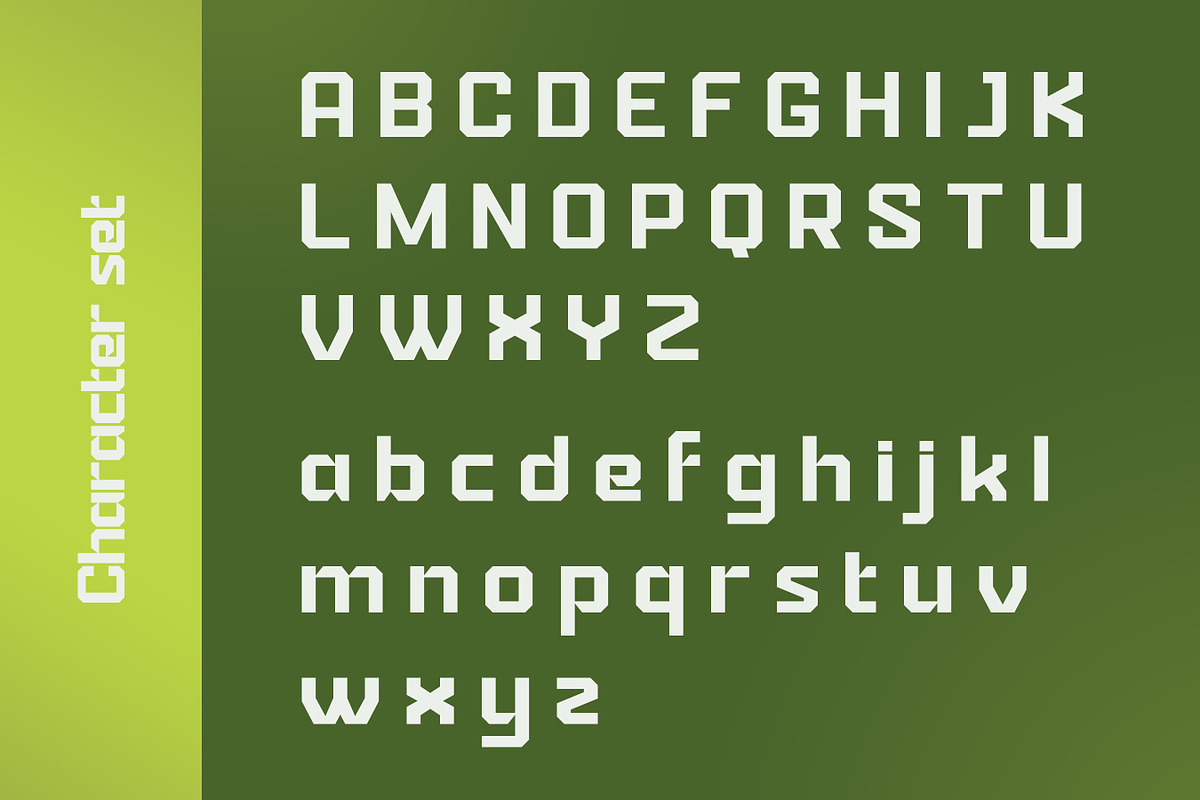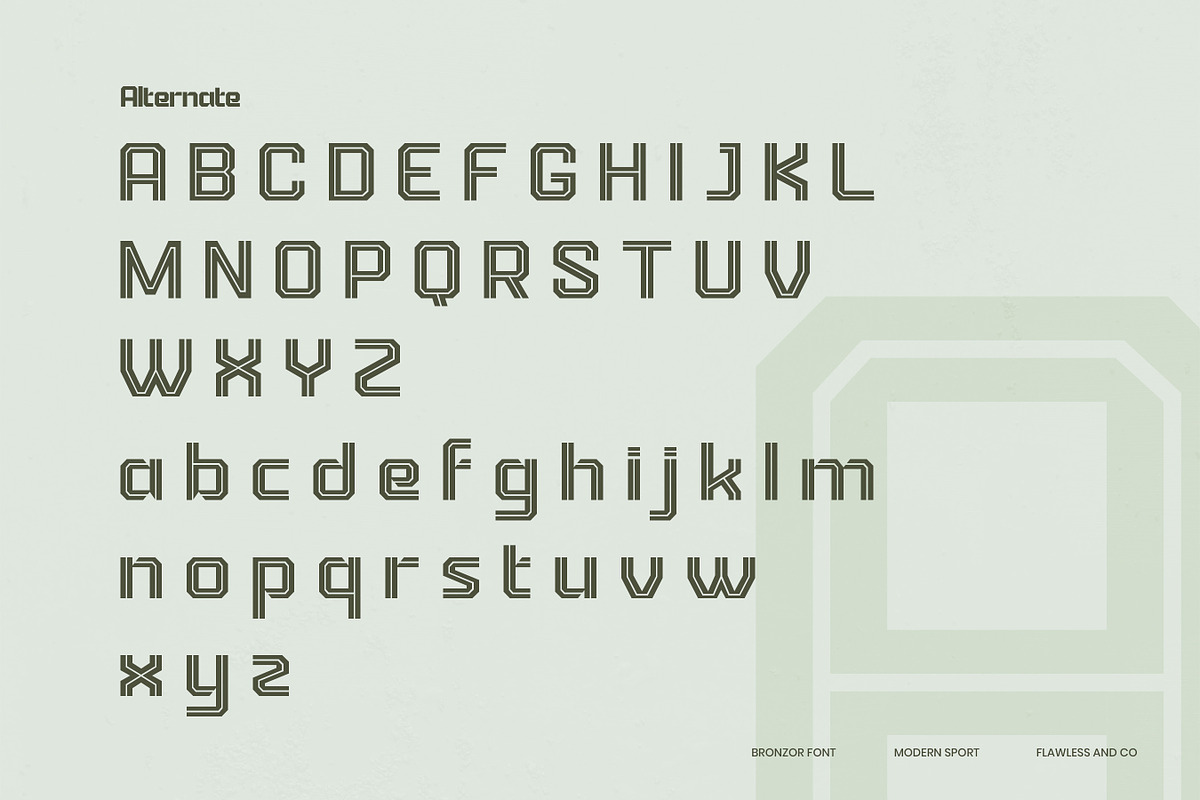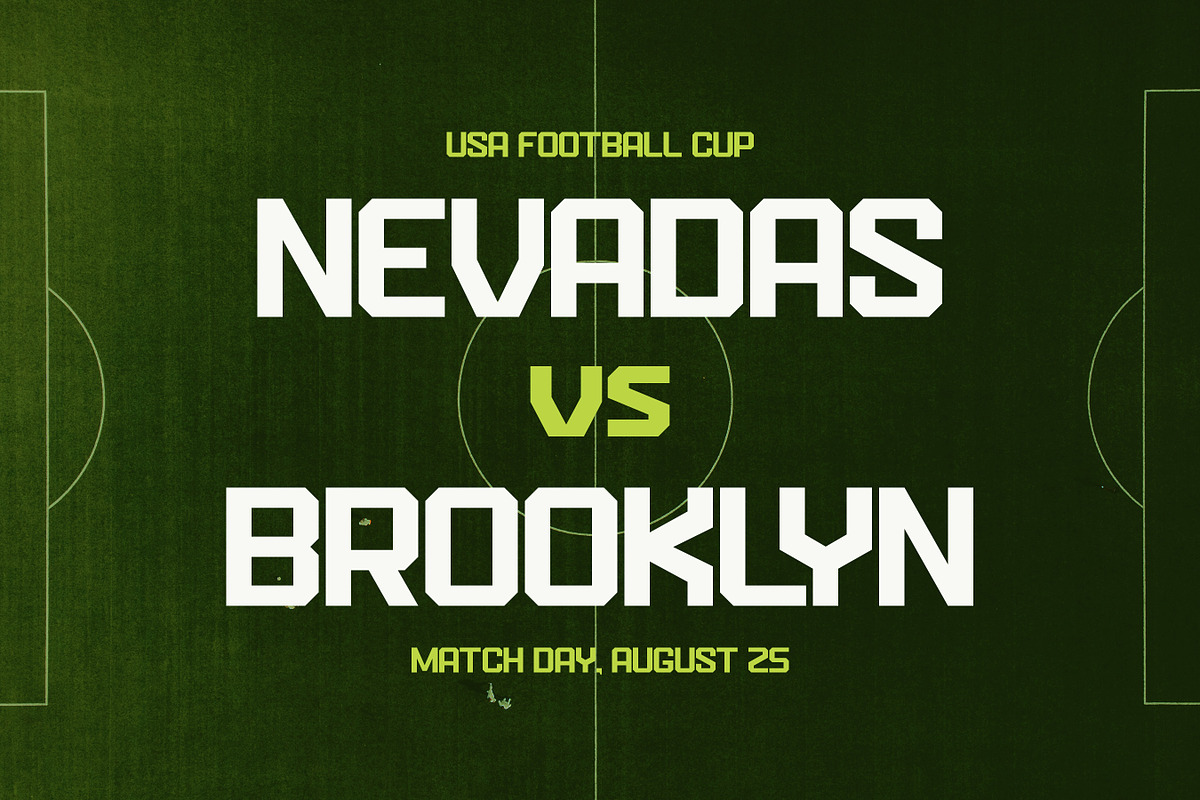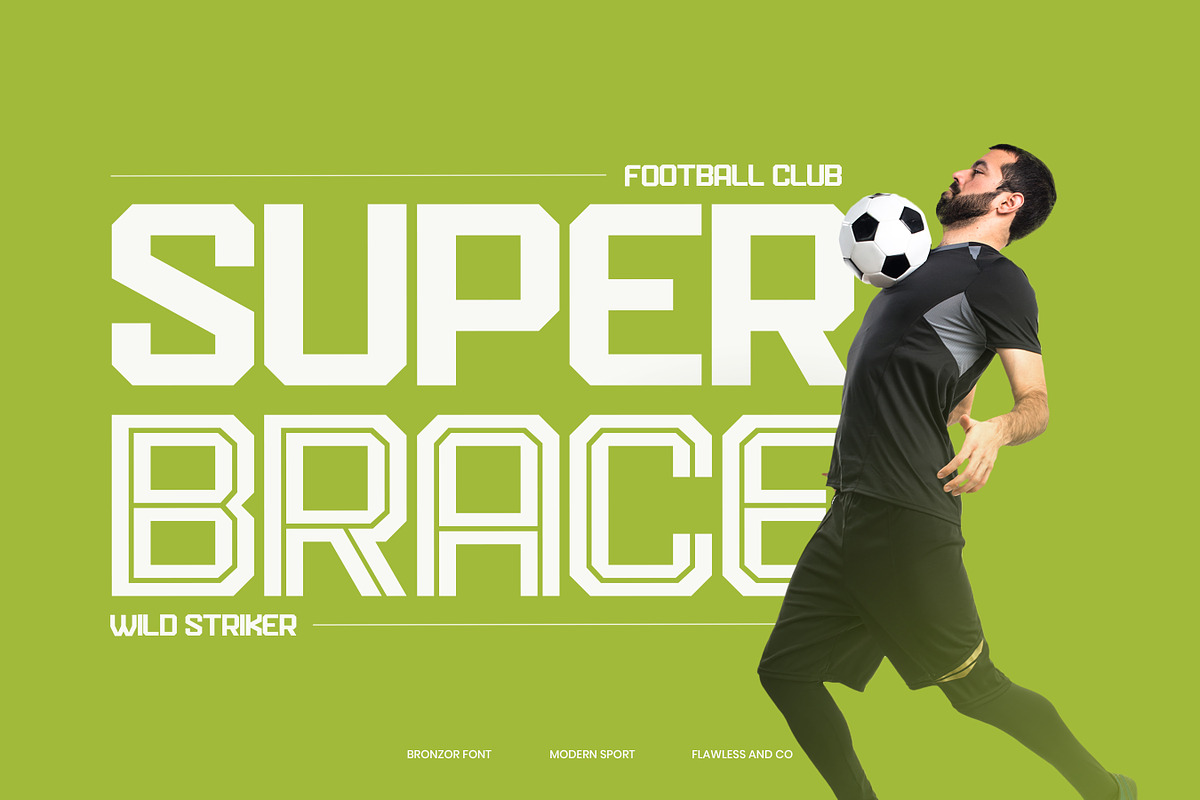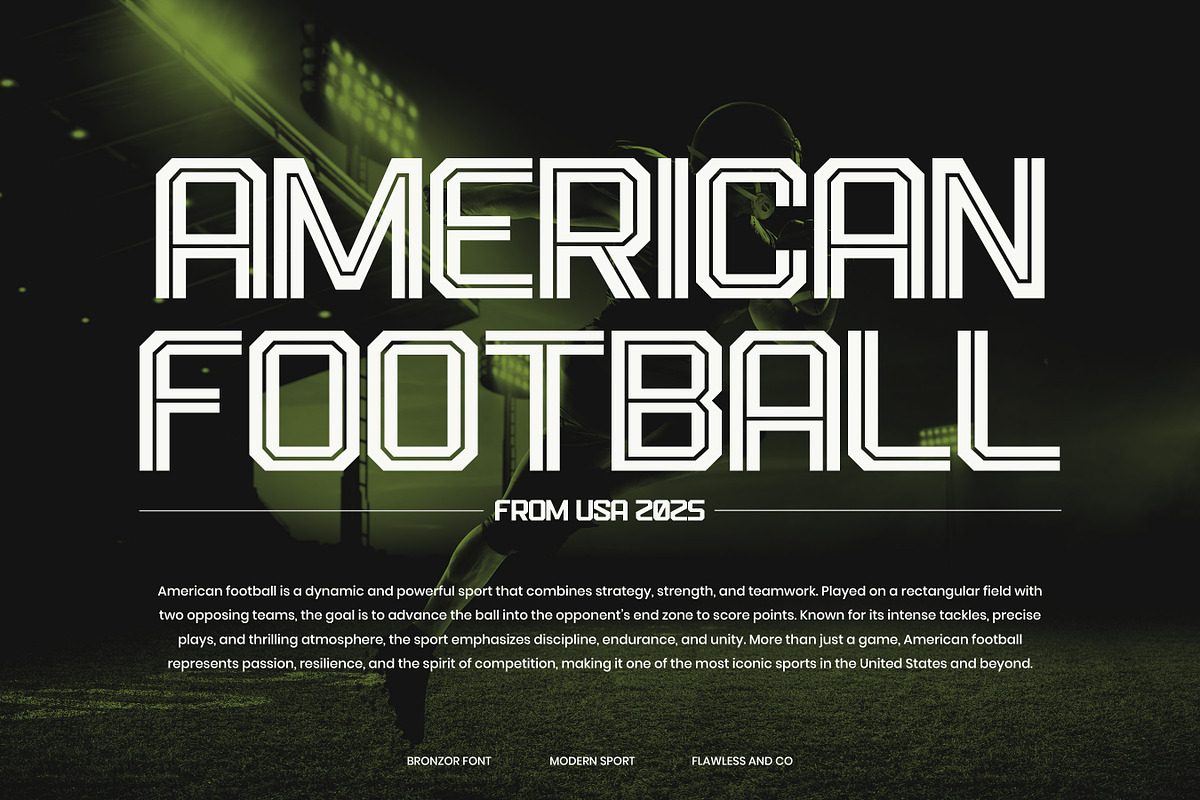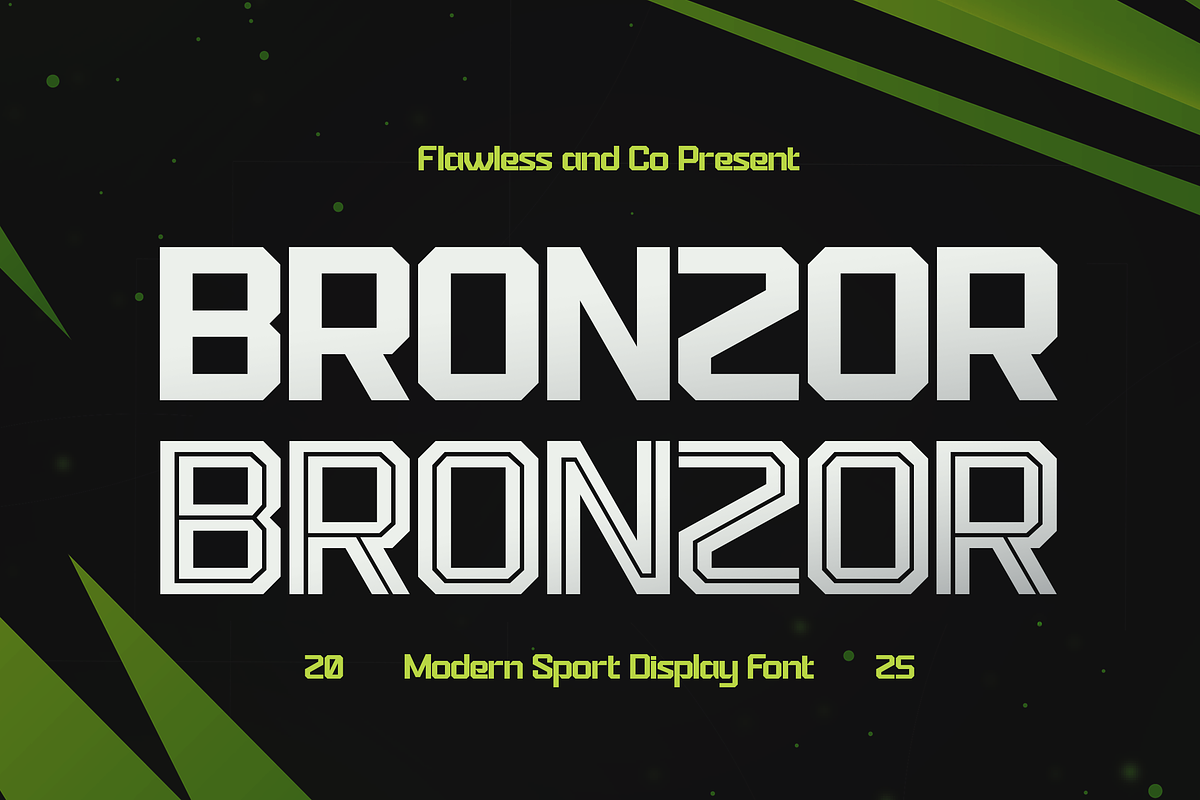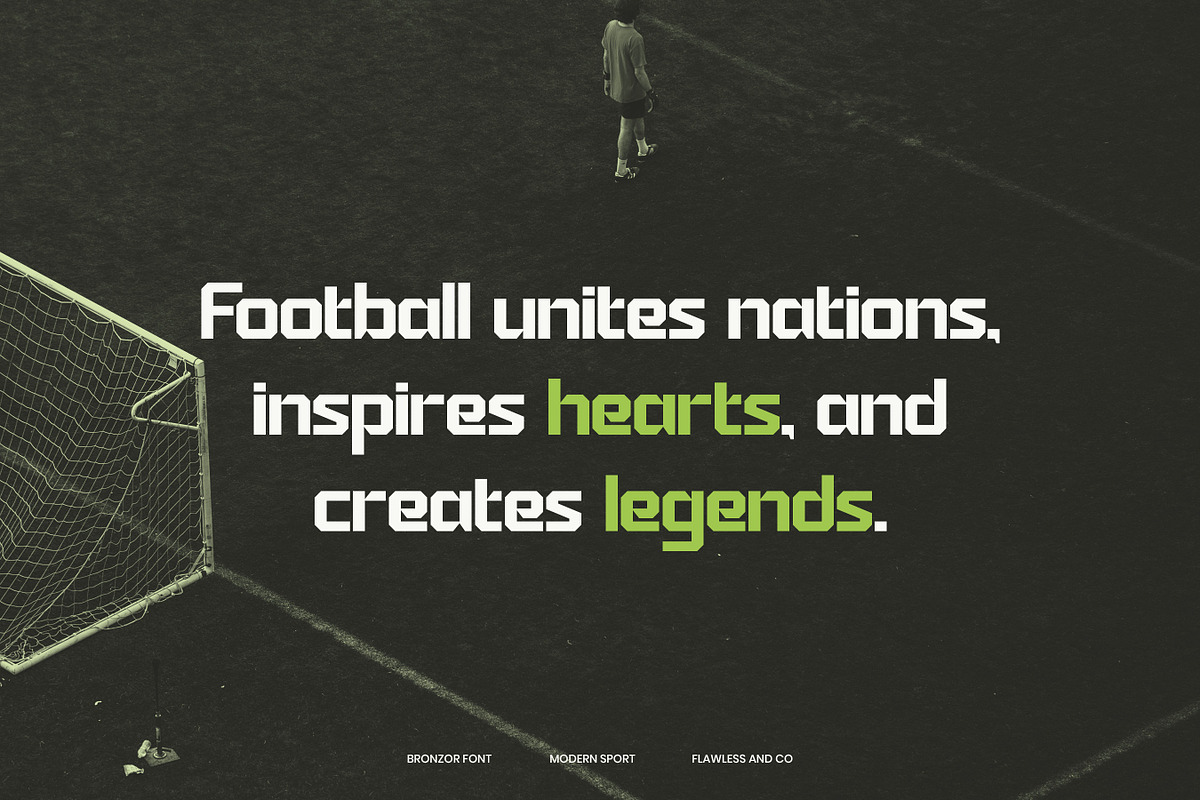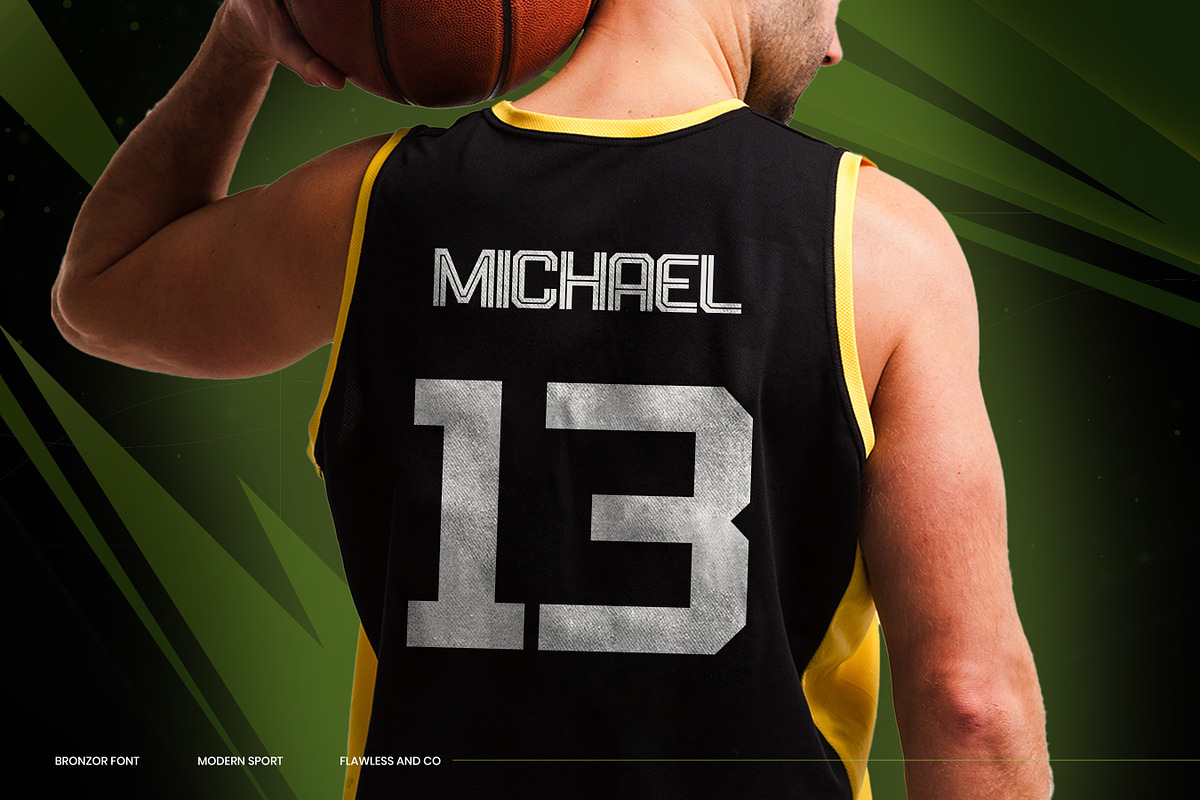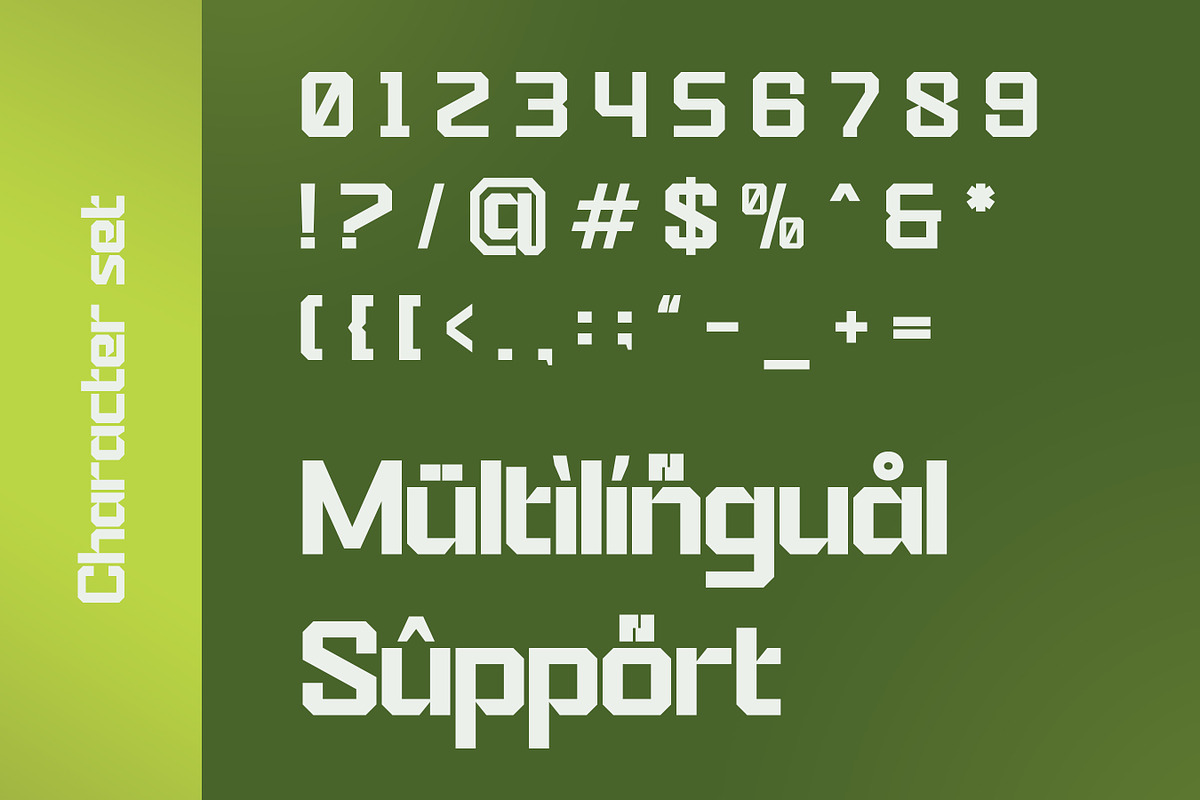
Bronzor - Sport Display Font
Bronzor – Modern Sport Display Font
Bronzor is a bold and powerful sport display font designed to bring energy, strength, and impact to your designs. With its sharp geometric edges and modern athletic vibe, Bronzor is perfect for projects that demand confidence and action. This font captures the essence of sportsmanship and competition, making it an ideal choice for dynamic visuals. Whether used on team jerseys, posters, branding, or merchandise, Bronzor adds a fearless and professional look. Its versatile style ensures that your designs stand out with a commanding presence — from basketball courts to esports arenas.
Who Should Use Bronzor?
Bronzor is made for designers, creatives, and brands who want to capture the bold spirit of sports and competition.
This font is perfect for:
- Sports teams & athletic clubs creating strong brand identities
- Event organizers designing posters, tickets, and promotional materials
- Apparel & merchandise designers who want impactful typography
- Esports teams and gaming brands needing bold, modern visuals
- Creative agencies working on sports branding and energetic campaigns
A Must-Have Font for "Brand and Logo" Creators and Designers
Bronzor is the ultimate choice for brand and logo designers who want to convey strength, speed, and modern energy. With its bold geometric form and athletic character, this font makes every design stand out with confidence and style. Whether you’re working on sports branding, dynamic logos, or powerful visual identities, Bronzor ensures your message is clear, impactful, and unforgettabl
Why Choose Bronzor for "Brand and Logo" Projects?
Bronzor is designed to capture attention and inspire action. Its bold lines, modern sport-inspired style, and versatile structure make it the perfect fit for logos that demand strength and authority. Whether you’re building a sports brand, designing a team identity, or creating dynamic promotional materials, Bronzor gives your projects a professional edge with a fresh, competitive vibe. It’s not just a font—it’s a powerful design tool to elevate your branding.
Suitable For:
- Sports team logos & branding
- Athletic apparel & merchandise design
- Gaming & e-sports identity projects
- Posters, flyers, and dynamic event promotions
- Bold headlines for magazines or editorials
- Social media graphics with a competitive edge